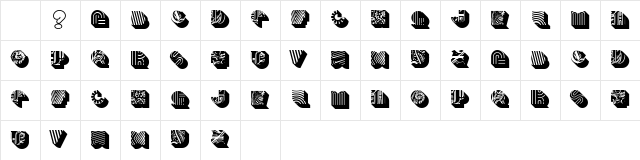
Complete BENTO Heavy glyph index. Displaying only characters natively supported by BENTO Heavy font.
BENTO is a composed and adaptable typeface that performs quietly and consistently across a wide range of design contexts.